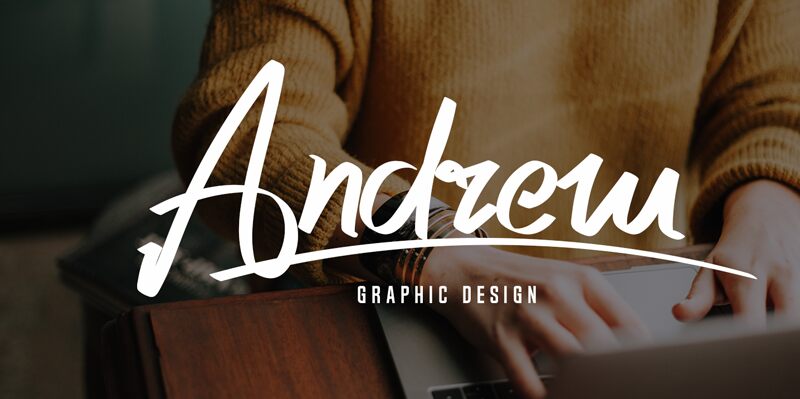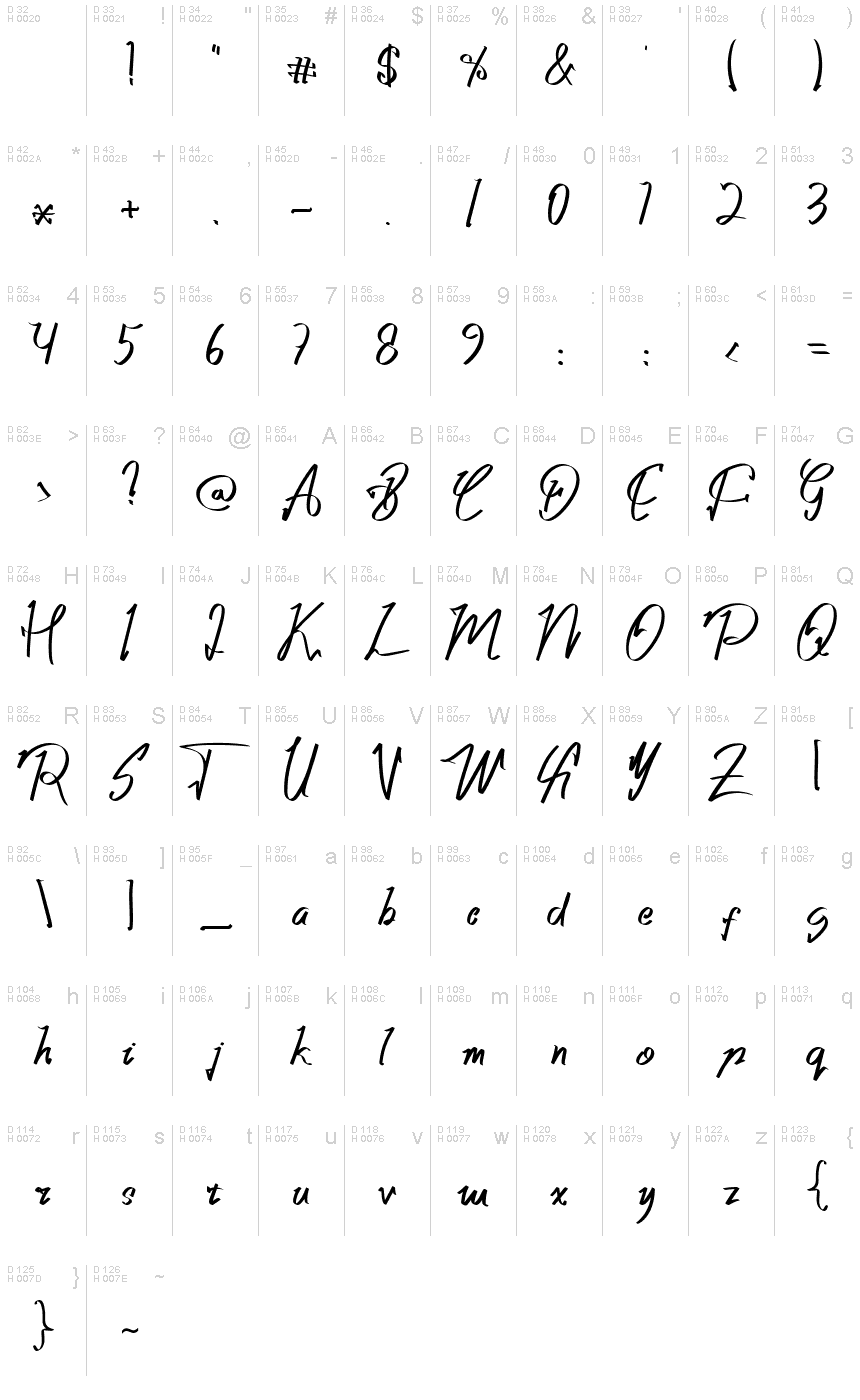
single binghod
Meet Single Binghod, the perfect handwritten font for any project that seeks to imbue a personal touch. Designed by Sifak Muf, this semi-light font boasts a delicate line weight that adds a subtle elegance to any design. Its semi-condensed width makes it ideal for projects requiring space efficiency without sacrificing readability. Use Single Binghod for invitations, greeting cards, and other print materials that require an intimate feel. Alternatively, incorporate it into digital designs such as social media graphics or website headers to inject warmth and personality into your brand's online presence.